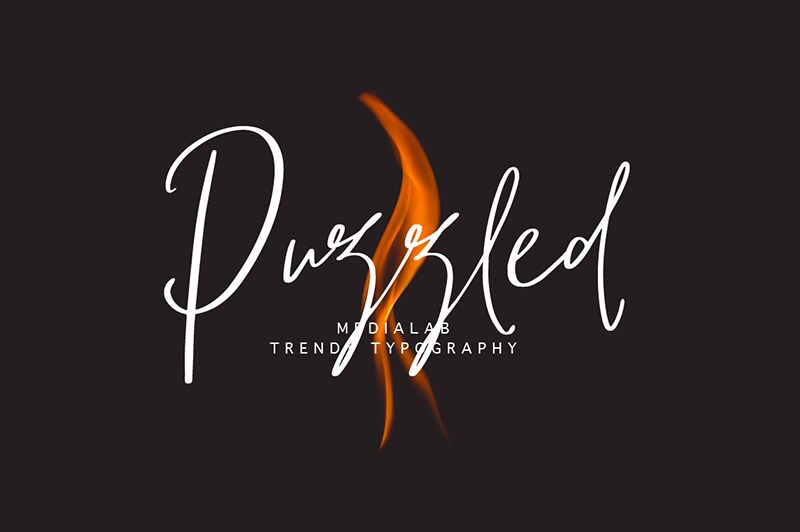
"Puzzled" is a modern calligraphy script that captivates with its distinctive and original style. Crafted with meticulous attention, this light-weight font features gentle curves and a harmonious flow, creating a sense of elegance and uniqueness. From the full set of lower and uppercase letters to the extensive range of punctuation and multilingual support, "Puzzled" offers designers a versatile tool to infuse their projects with a touch of refined sophistication.
This calligraphic font's striking aesthetic appeal makes it an ideal choice for branding, lettering, and a wide array of design applications. Its distinctive character can elevate the visual impact of logos, headlines, and editorial layouts, while the font's multilingual capabilities expand its reach across diverse audiences and creative endeavors.
Puzzled